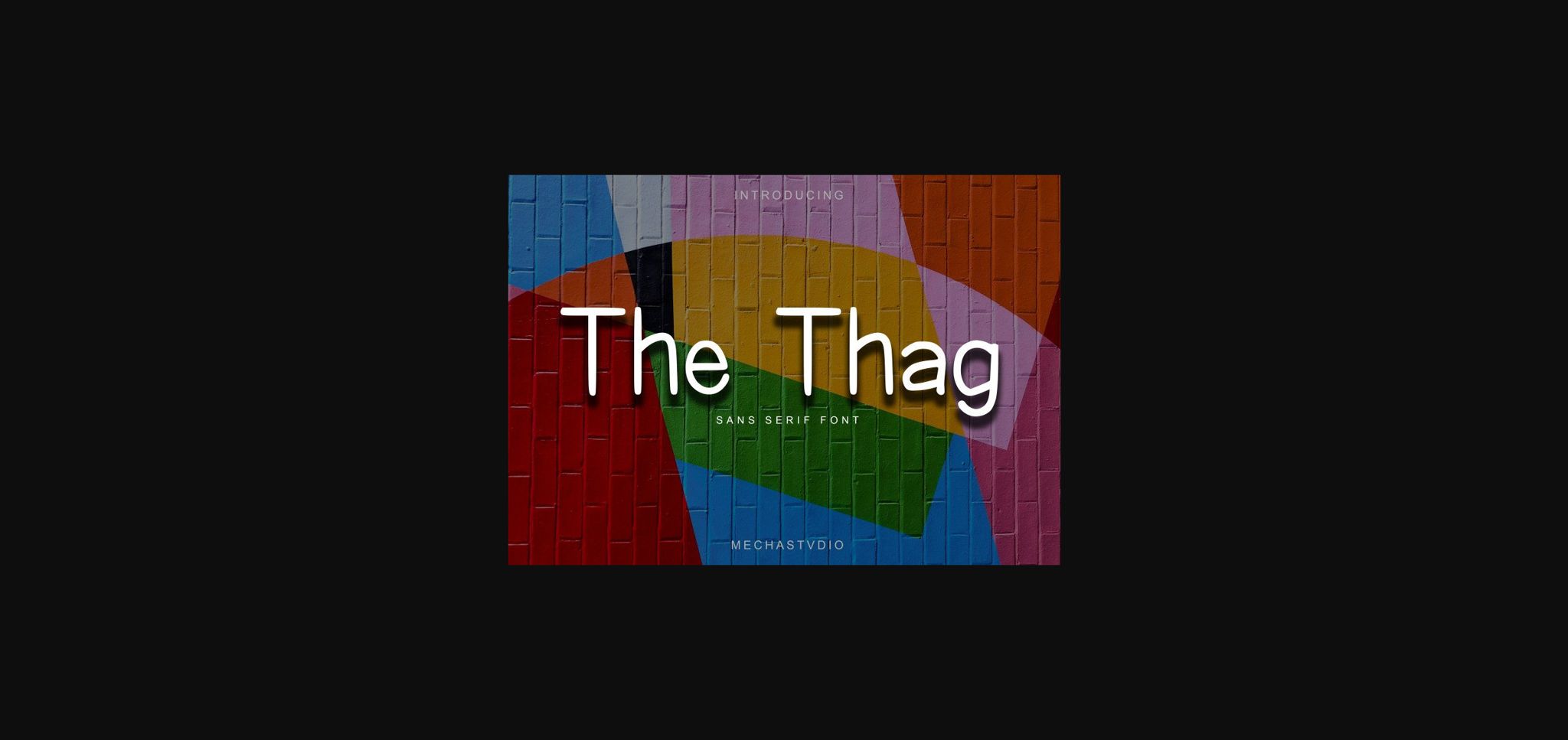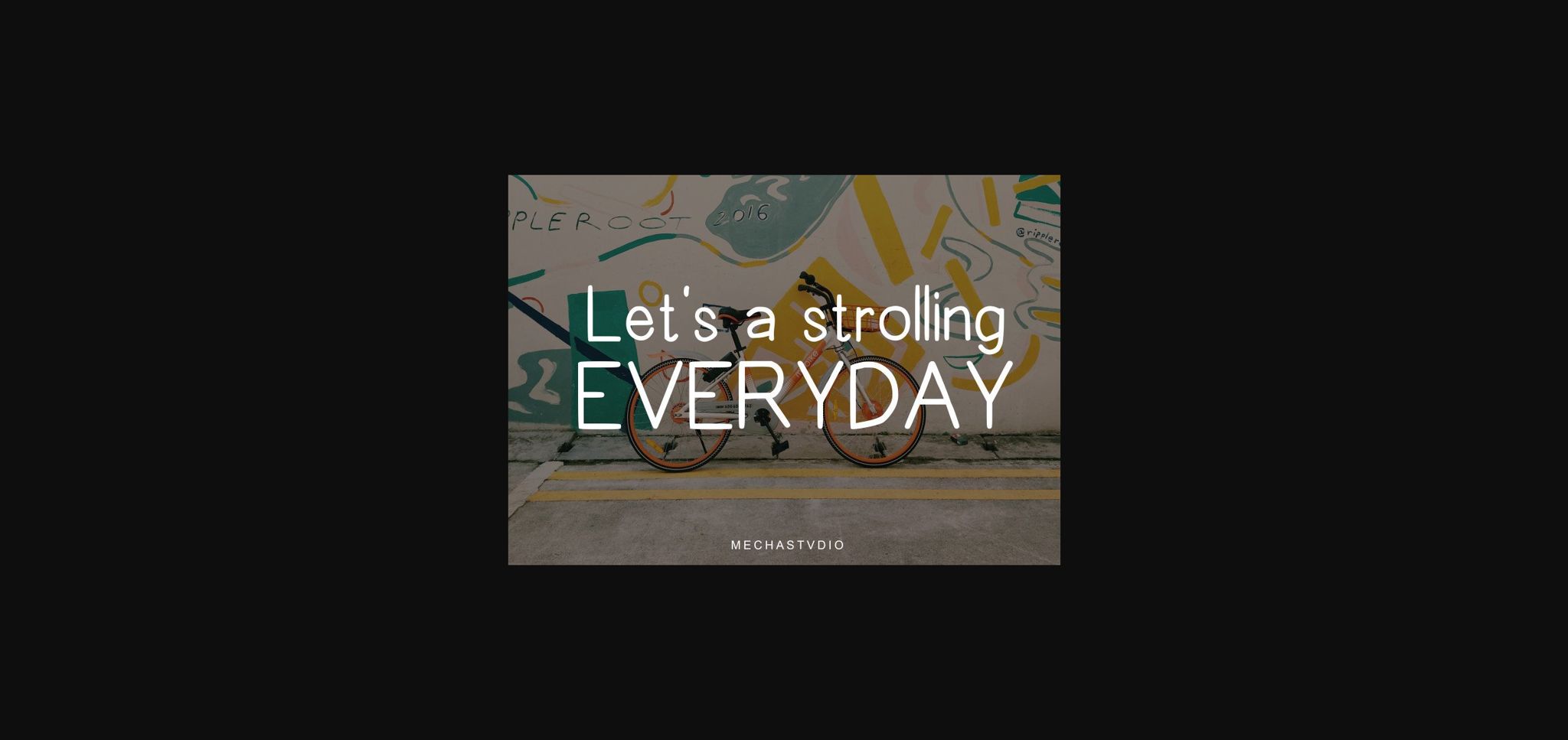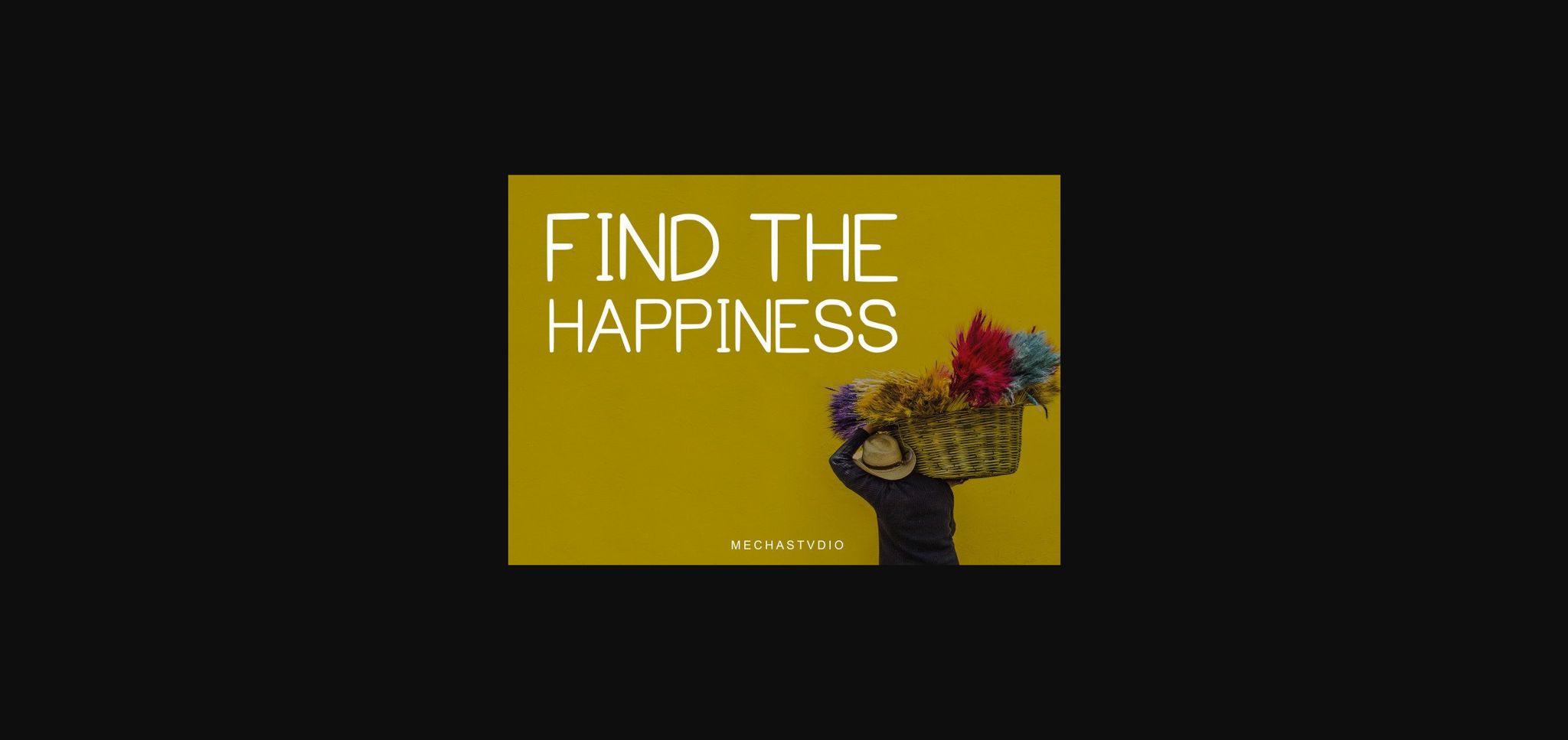
The Thag Font
About The Thag Font
The Thag is a modern, simple, and unique sans serif font. Its unique style is perfect for all your projects as it has the potential to transform them into a true standout.